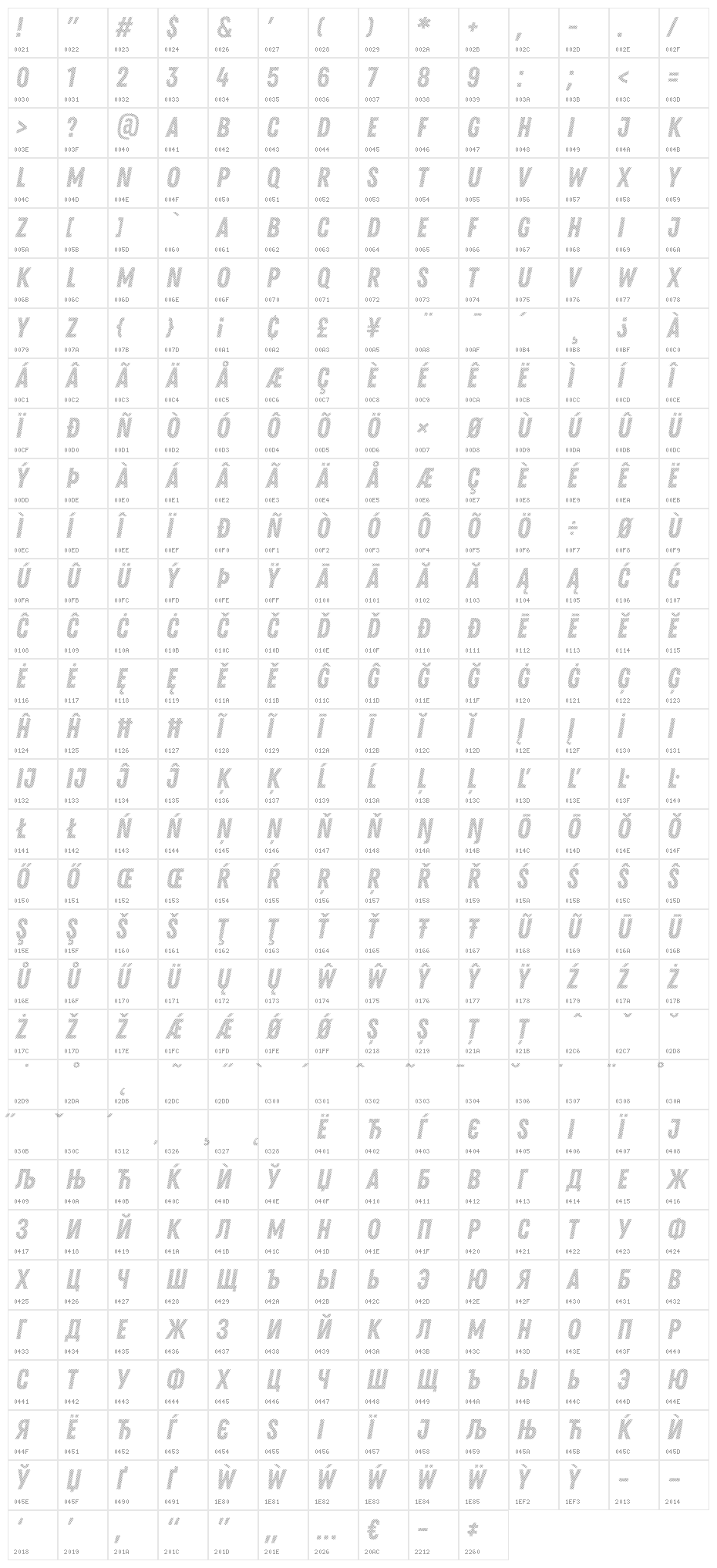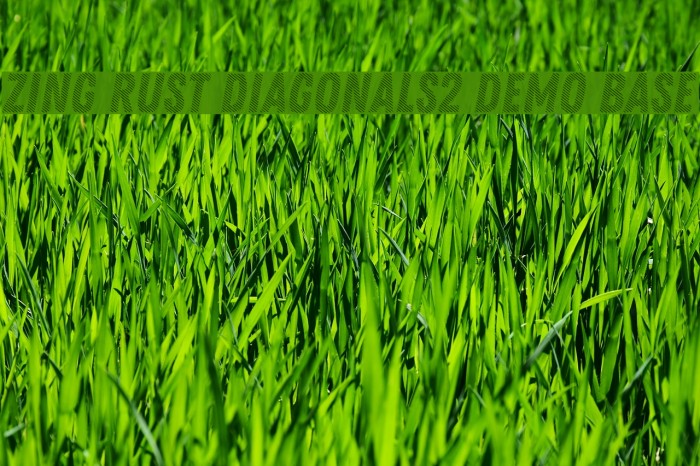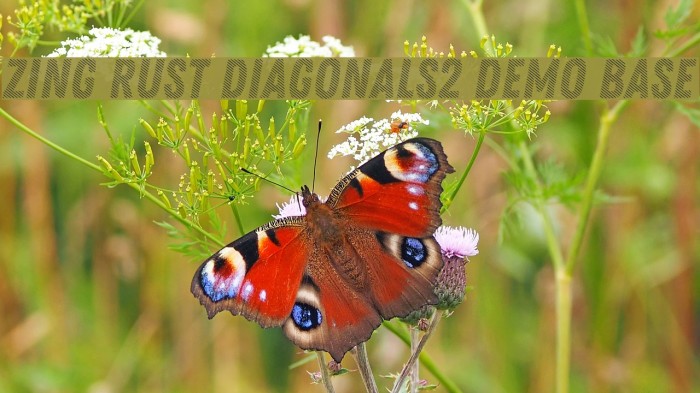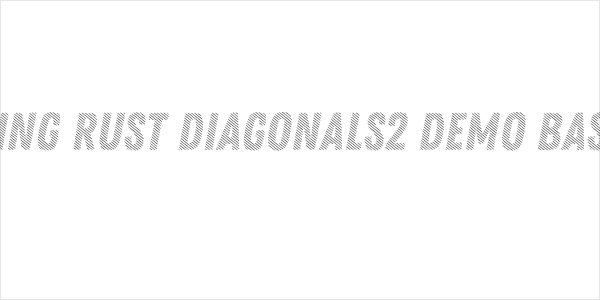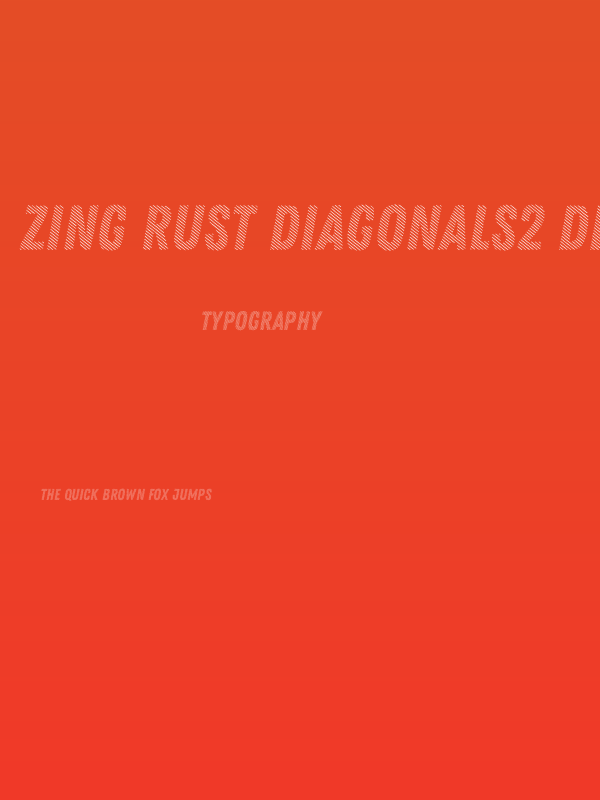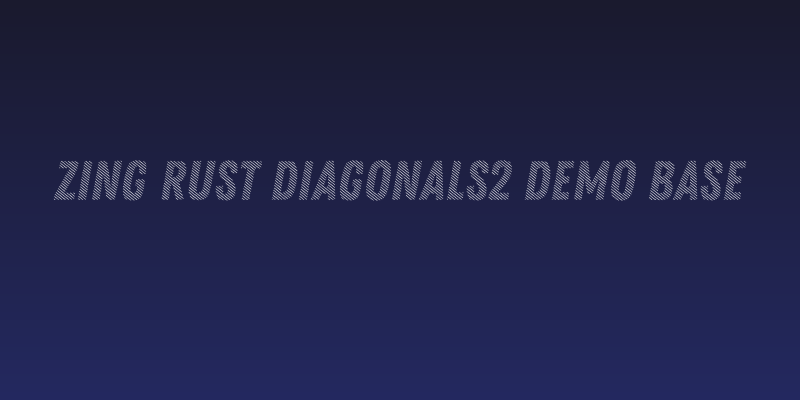
Zing Rust Diagonals2 Demo Base Font
Zing Rust Diagonals2 Demo Base Description
This font features a unique diagonal line pattern across each character, giving it a textured and dynamic appearance. The uppercase and lowercase letters are bold and slightly condensed, creating a strong visual impact. The numbers and special characters maintain the same diagonal line style, ensuring consistency throughout the font. The overall design is modern and eye-catching, making it suitable for projects that require a distinctive and bold typeface. The diagonal lines add a sense of movement and energy, making it ideal for creative and artistic applications.
| Proposed Projects | Ideal for posters, branding, album covers, and any project needing a bold, artistic touch. |